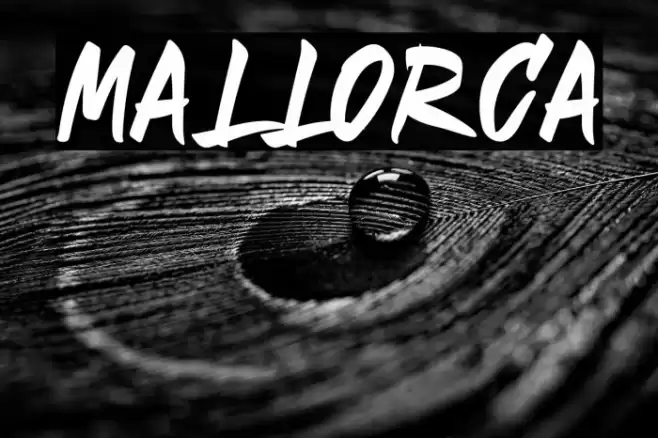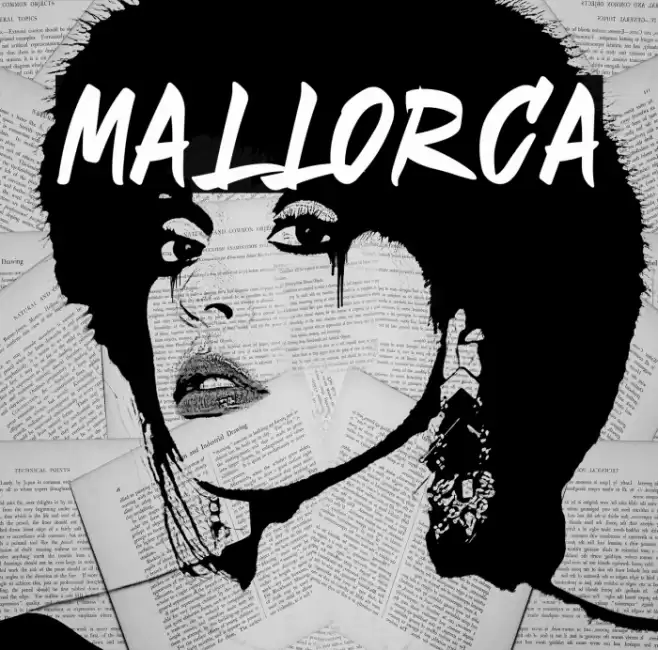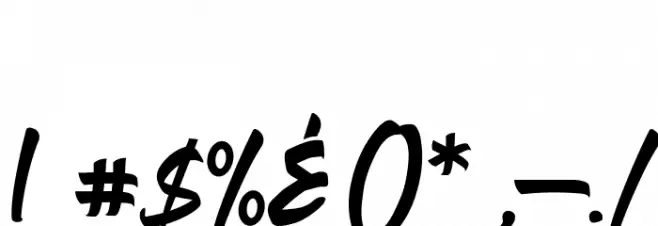
Mallorca Font
Mallorca Description
This font features a dynamic and energetic script style, characterized by its bold and flowing letterforms. The uppercase and lowercase letters exhibit a consistent slant, giving the text a sense of motion and fluidity. The strokes are thick and expressive, with a brush-like appearance that adds a personal and handcrafted touch. The characters are well-spaced, maintaining readability while preserving the font's artistic flair. Special characters and numbers are designed with the same attention to detail, ensuring a cohesive look across all text elements.
A bold, energetic script font with a brush-like, handcrafted style from Regular fonts.
- Font: Mallorca
- Proposed Projects: Ideal for branding, logos, packaging, and creative projects that require a personal and artistic touch.
- Use Case: Logos, Headlines, Creative projects